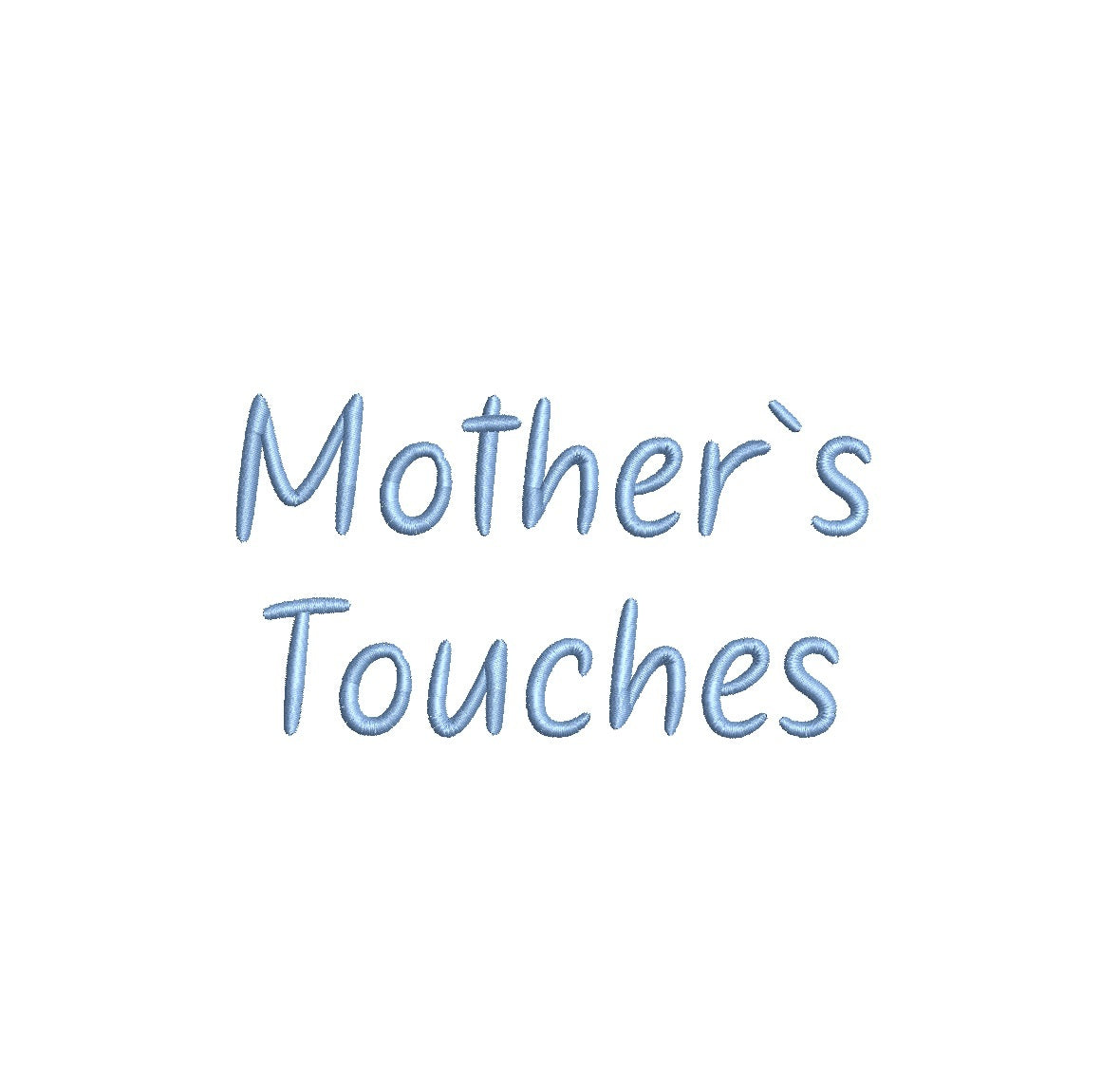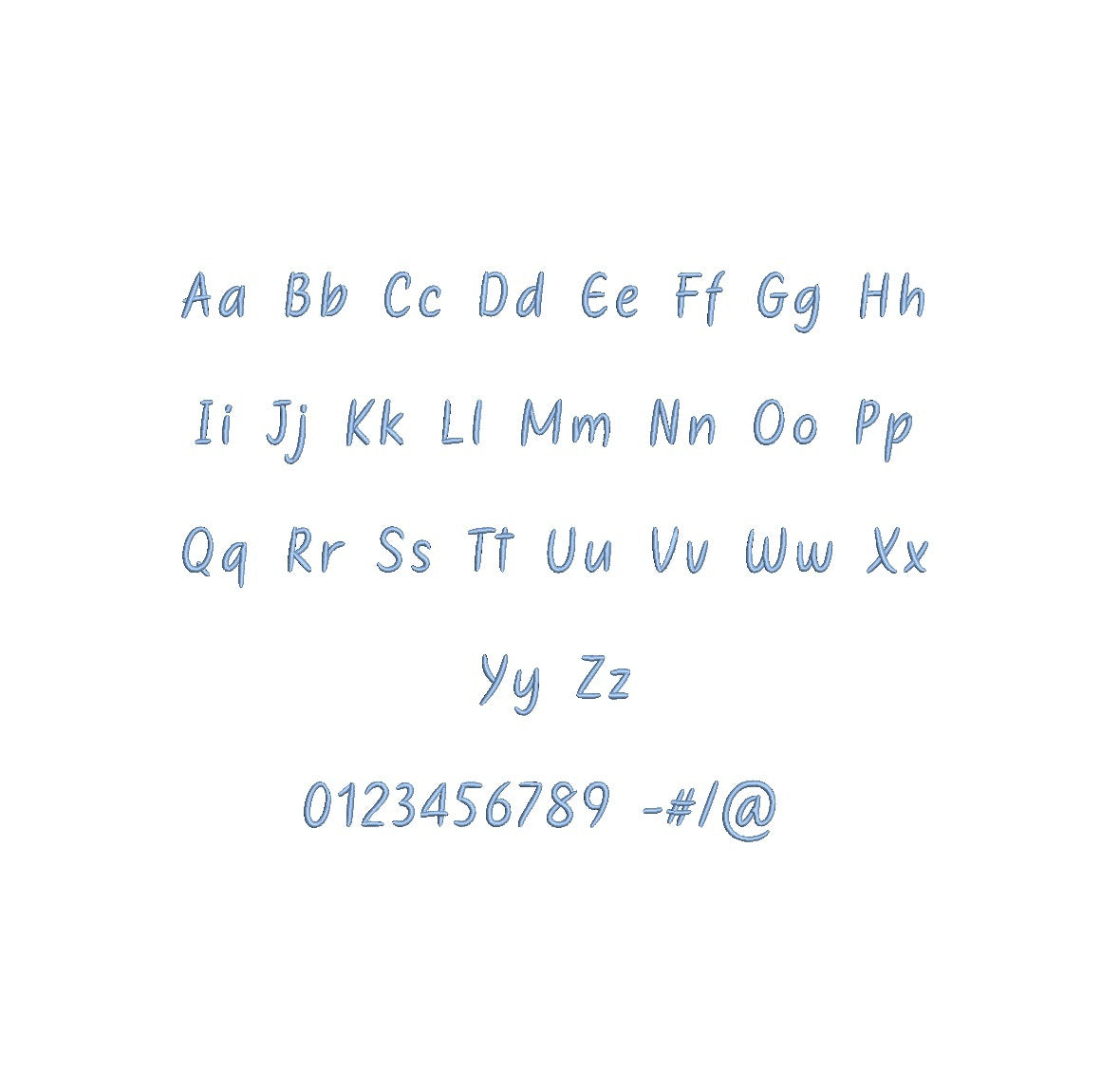
Introducing Mother's Touches Regular ESA Font, the tender embrace for your embroidery visions! Expertly tailored for compatibility with Wilcom Studio e4.5.6 and Hatch 3 versions and beyond, this font cradles your creativity seamlessly. Elevate your embroidery projects with the gentle precision and timeless elegance of Mother's Touches. Designed to be the perfect choice for logos, monograms, and all text elements, it caters to professionals and passionate hobbyists alike. Unleash a world of heartfelt creativity with Mother's Touches Regular ESA Font. Don't miss the chance to infuse your designs with warmth - acquire it today and experience embroidery with a motherly touch of excellence!